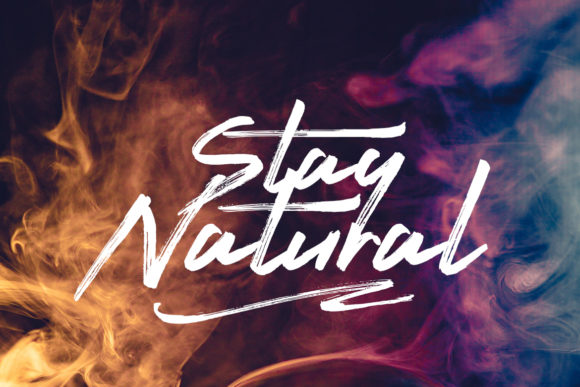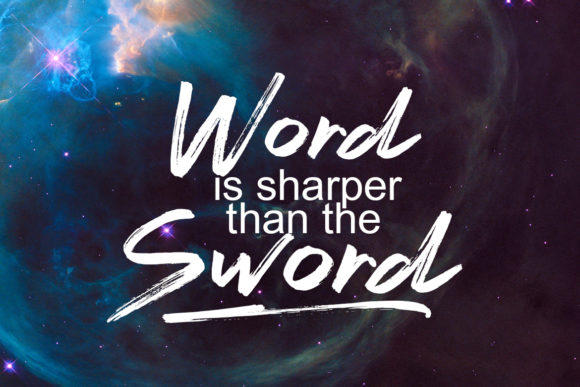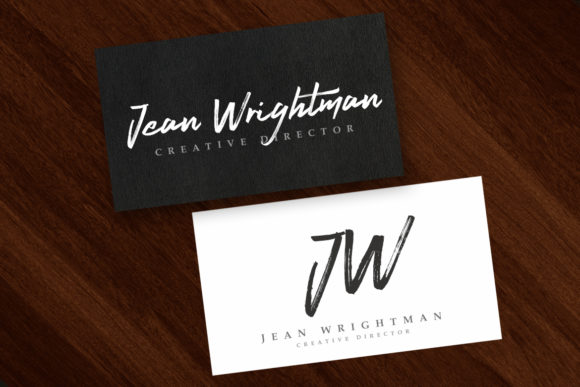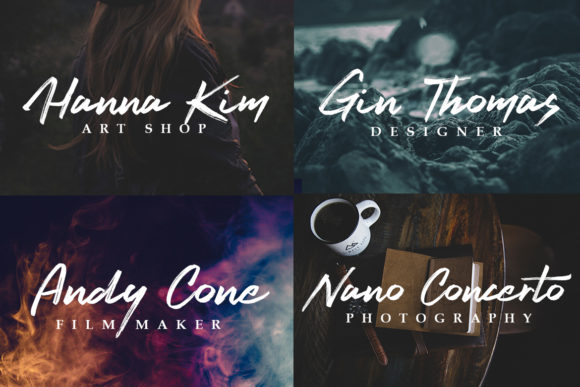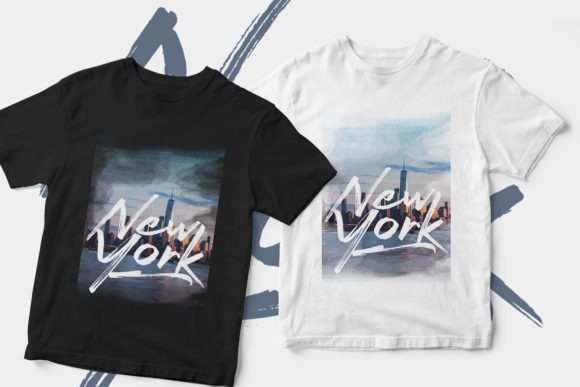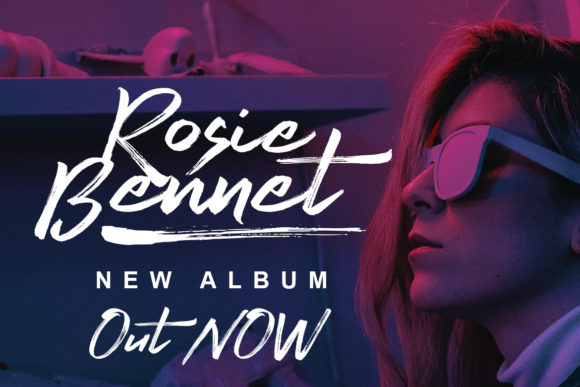
The Perfect Brushstroke for Your Next Masterpiece
Have you ever been stuck in a design rut, searching for that one font that will elevate your project and leave a lasting impression? We’ve all been there, pouring over font libraries, trying to find the perfect combination of style and substance. It’s in those moments of creative frustration that we stumble upon something truly special – like the Brave Strong Font.
Brave Strong is a bold and beautiful handwritten font that adds an organic, urban twist to any design project. Its unique brushstroke style makes it perfect for creating eye-catching headings, quotes, and even entire brand identities. Whether you’re working on a fashion campaign, a music festival poster, or a trendy food truck menu, Brave Strong Font is the perfect addition to your design arsenal.
Brave Strong Font Key Features
- Unique Characteristics: Brave Strong features a unique blend of modern and rugged elements, making it ideal for use in designs that require a strong, bold, and confident look.
- Kerning and Ligatures: Brave Strong includes advanced kerning and ligature support, ensuring that the font looks its best in both body text and display settings.
Designer Review: Brave Strong Font
Overall, I think Brave Strong Font has some great qualities that make it a solid choice for designers. ✨ The font’s bold and confident aesthetic makes it perfect for headings and titles, especially in modern and edgy designs. ✨ The wide range of weights also allows for a lot of flexibility and customization.
One of the things that really stands out about Brave Strong Font is its uniqueness. It’s not a traditional font, and that’s part of its charm. It’s a great choice for designers who want to add some visual interest to their projects.
While Brave Strong Font has a lot of great qualities, there are a few limitations to consider. ⚠️ The font’s boldness can sometimes make it difficult to read, especially in smaller sizes or at a distance. ⚠️ Additionally, the font’s quirky aesthetic may not be to everyone’s taste, and some designers may find it too bold or overwhelming.
Overall, I think Brave Strong Font is a great addition to any designer’s toolkit. It’s a unique and confident font that can add a lot of visual interest to a project. While it may have some limitations, I think it’s definitely worth checking out.
- Unique and confident aesthetic
- Wide range of weights
- Perfect for headings and titles
- Modern and edgy design style
For best results, use the Brave Strong Font for headings and titles to create a bold and eye-catching effect.
It’s also great for creating motivational quotes, social media graphics, and other visual content where a strong and confident font is needed.
Remember to pair the Brave Strong Font with a clean and simple design to avoid visual overload.